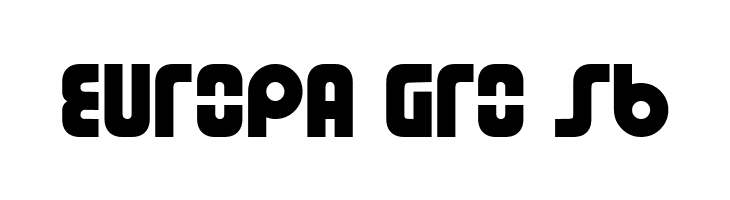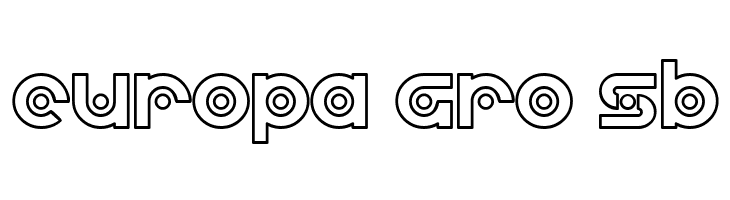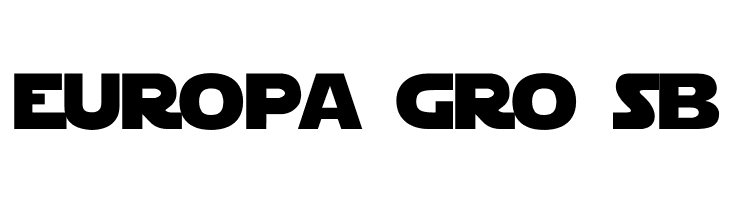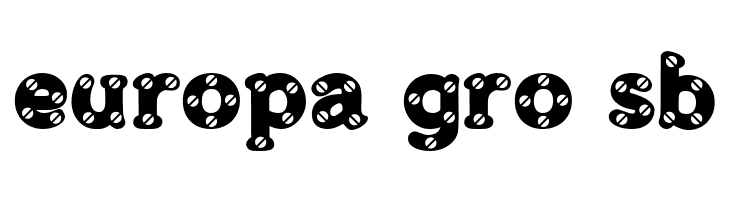
A futuristic, geometric outline font with circular elements and consistent width.
A bold, futuristic font with geometric shapes and a sci-fi aesthetic.
A bold, geometric font with playful and artistic elements.
A bold, playful font with polka dot patterns and rounded characters.